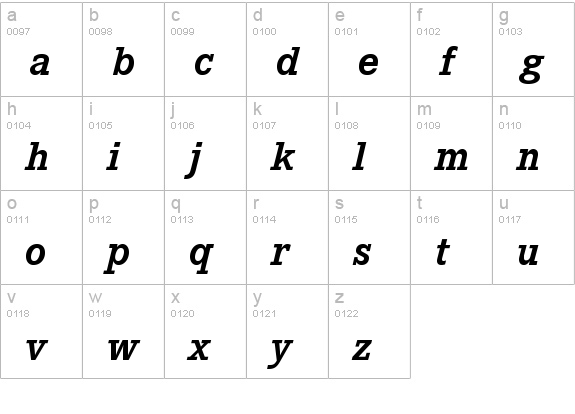
Corporate E BQ Expert Bold Italic OsF Font Details
Corporate E BQ Expert Bold Italic OsF is a strong, high-contrast, italic variant in the Corporate typeface family \xE2\x80\x94 well suited to headlines, attention-grabbing titles, and strong calls-to-action.
Introducing Corporate E BQ Expert Bold Italic OsF font, a sophisticated and versatile typeface designed for corporate use. This font exudes professionalism and elegance, making it perfect for a wide range of projects, from business presentations to marketing materials. With its bold and italic styles, Corporate E BQ Expert Bold Italic OsF font adds a touch of flair and modernity to your text. The OpenType features ensure smooth and seamless integration with various design software, allowing for easy customization and flexibility. Best of all, this premium font is available for free download at FontsMarket.com. Now you can elevate your projects with the sleek and stylish Corporate E BQ Expert Bold Italic OsF font without breaking the bank. Download it today and take your designs to the next level!